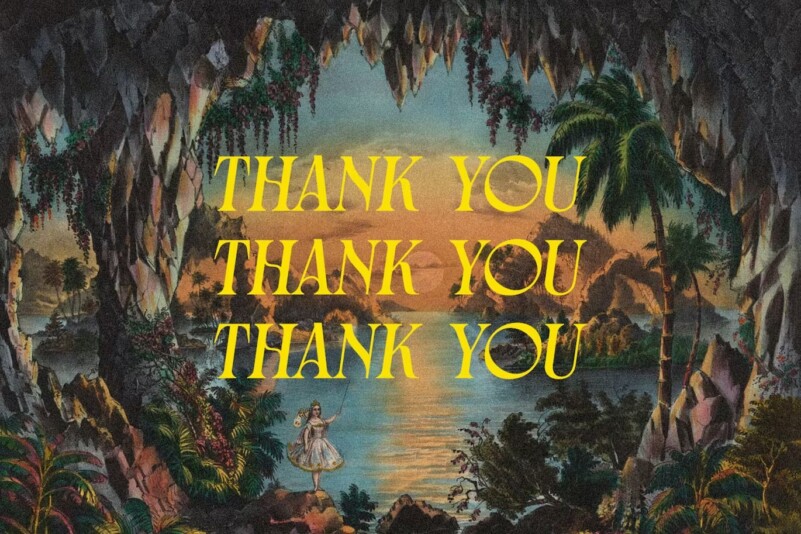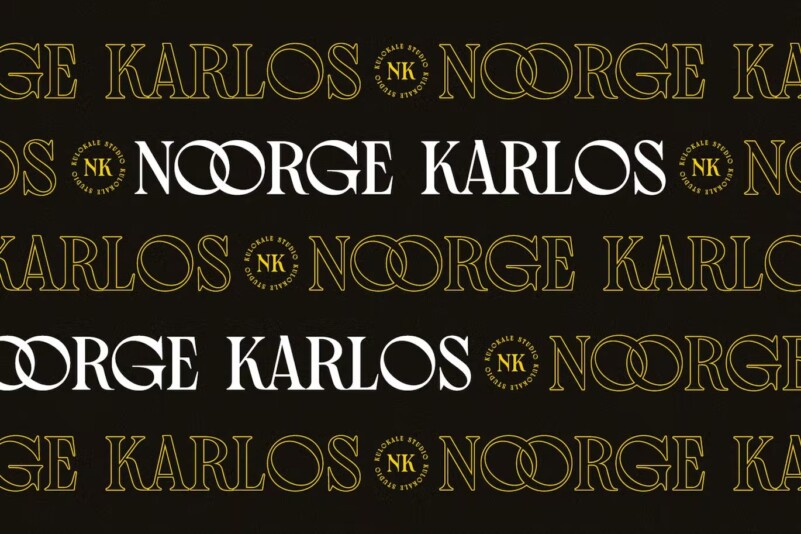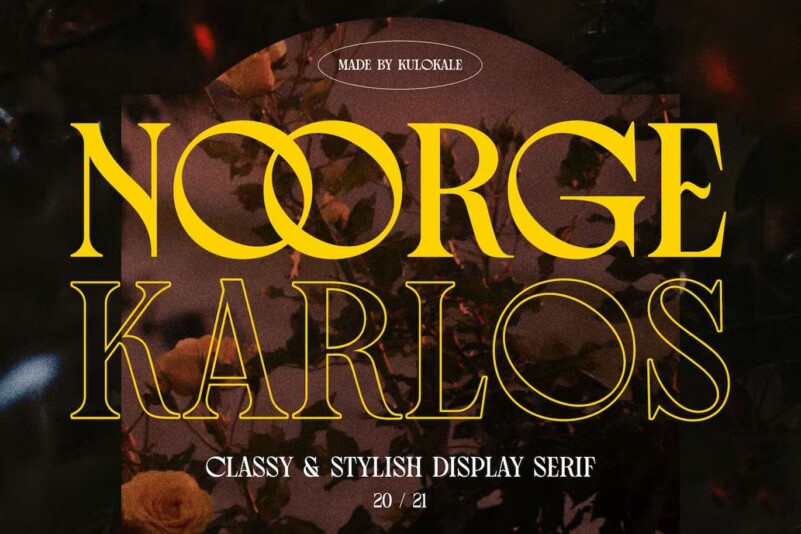
Noorge Karlos Font
Noorge Karlos is a classy and elegant serif font. Noorge Karlos is ideal for advertising, branding, logos, packaging, titles, titles and editorial design. This font comes in four styles, Regular, Oblique, Outline, and Oblique Version.